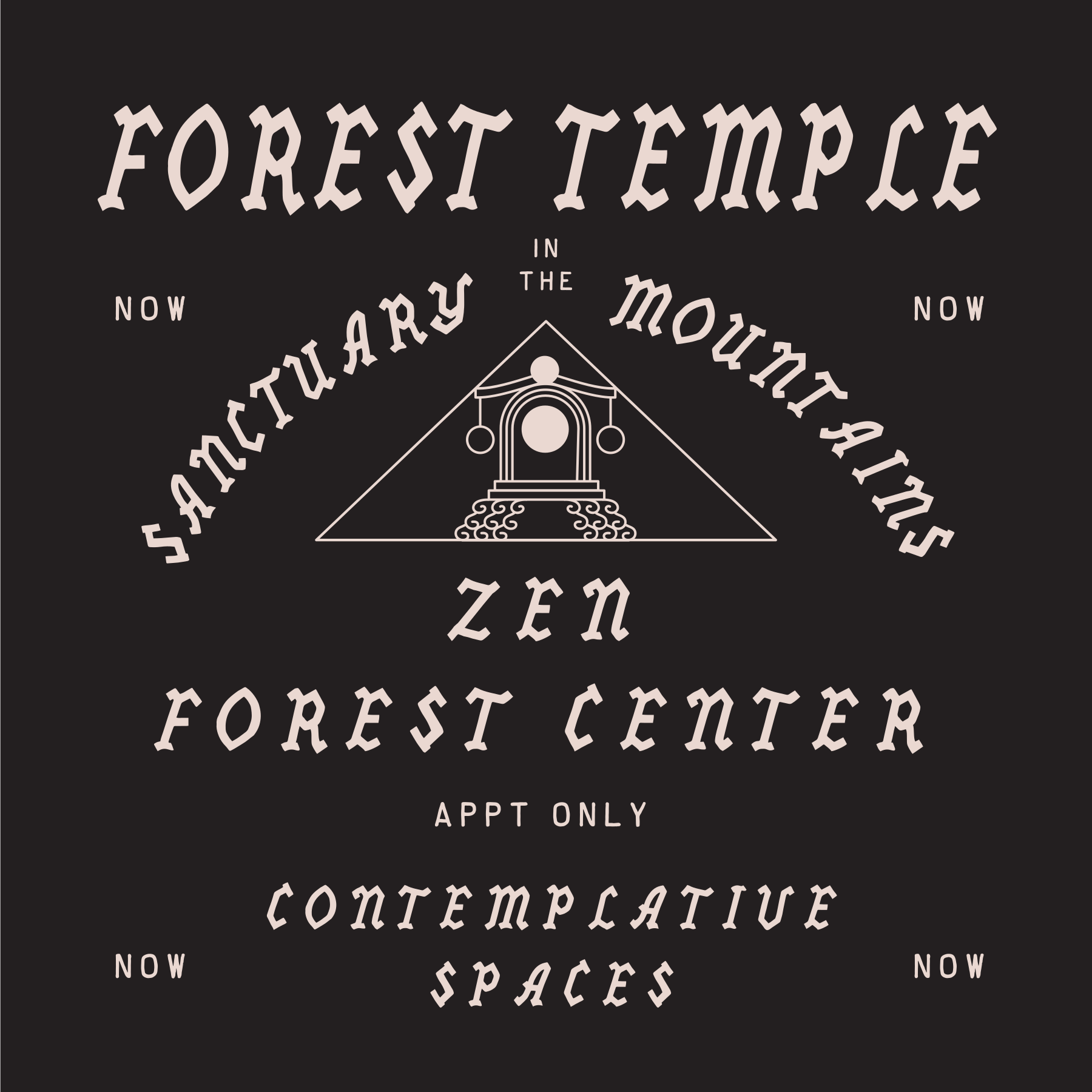
Forest Retreat
Retreat into the realm of early monastic manuscripts and early illuminated folk art that graced the walls of temples still standing in black forests. Etched deeply into the soft paper with a hard edged quill, or chiseled into old growth, Forest Retreat inspires a playful exploration of merging the ancient and modern, a crude marriage of blackletter and slab.